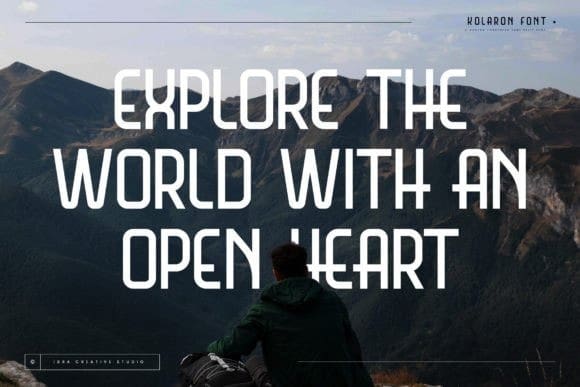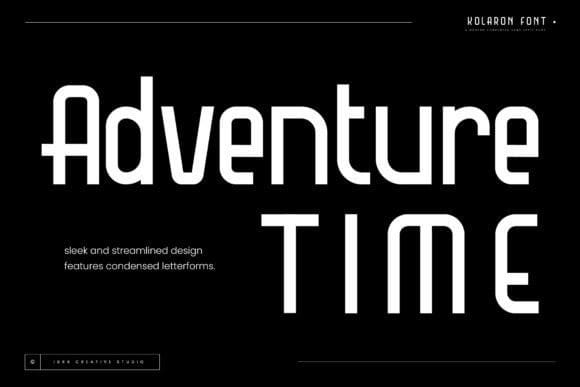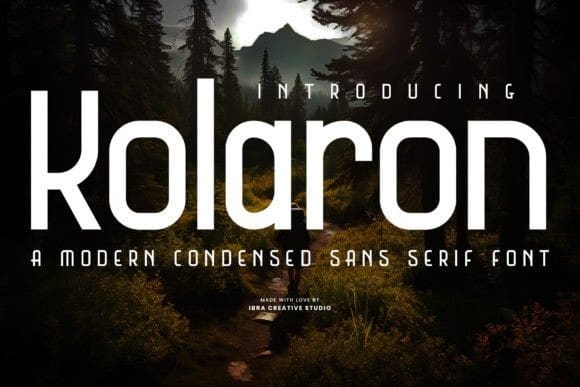
Kolaron Font
Kolaron Font is a contemporary condensed sans-serif typeface that effortlessly blends sophistication with modernity. Its sleek and streamlined design features condensed letterforms that exude a sense of efficiency and space optimization, making it an ideal choice for projects where legibility and style are paramount. The font’s clean lines and geometric shapes contribute to a polished and professional appearance, making it versatile for a range of applications, from corporate branding to editorial design.